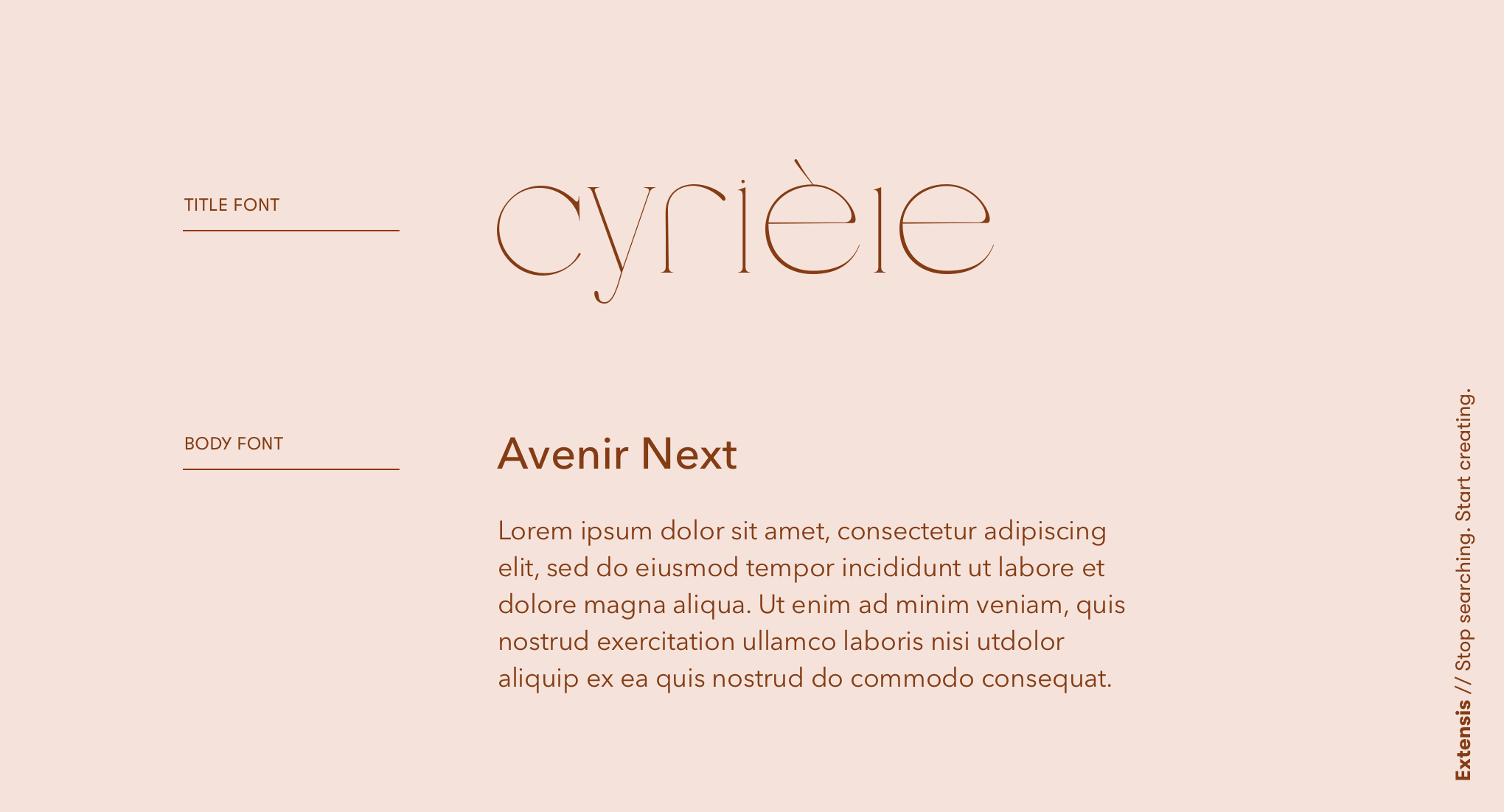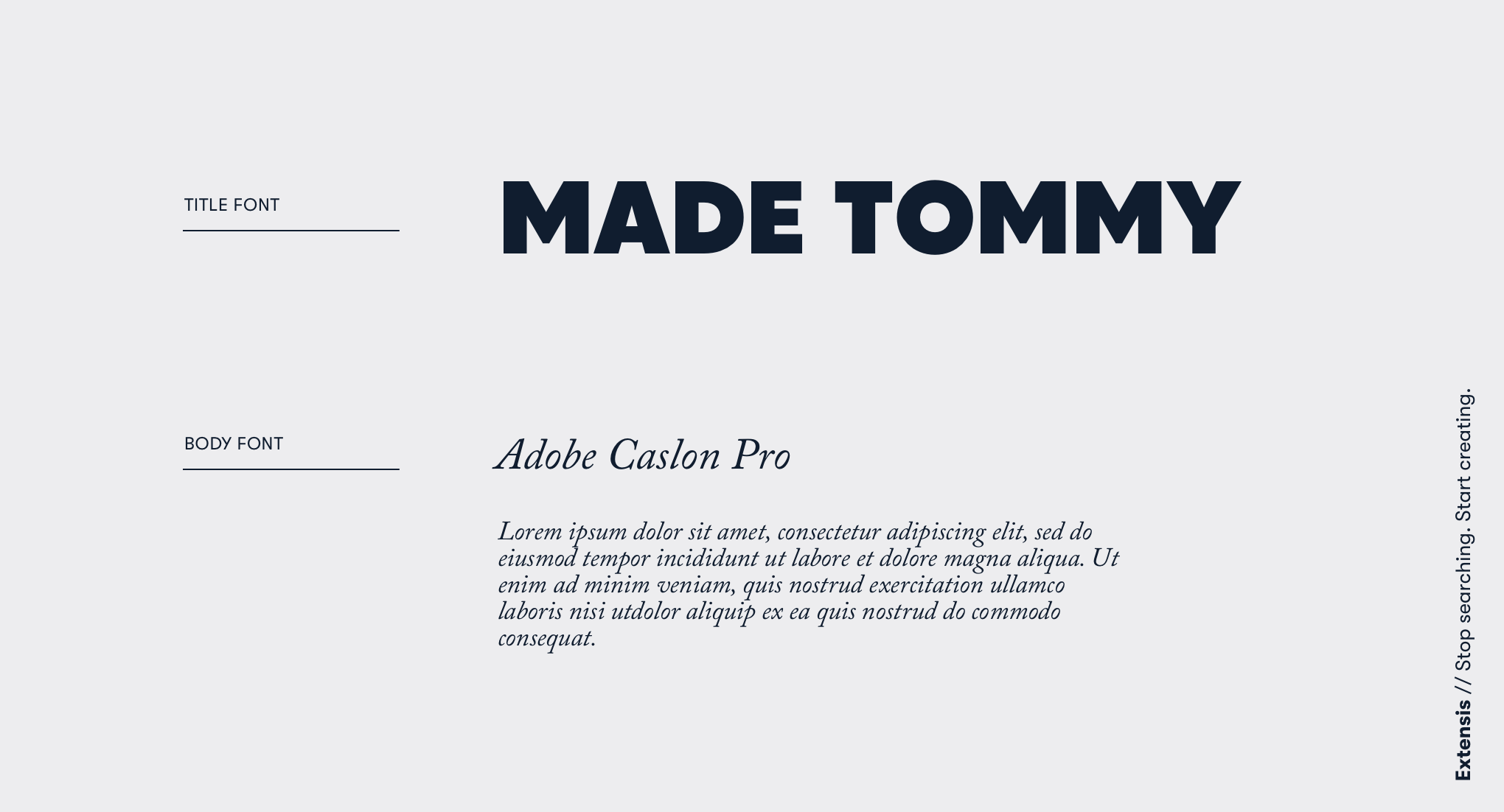
title: "Better Together: Why Font Pairing Matters"
# Better Together: Why Font Pairing Matters
Let's be honest, we have an idea of what keeps designers up at night. Bad kerning, not enough white space, and of course how to pair fonts. These things keep us up, too. In fact, we take font pairings very seriously … it’s kind of a passion of ours.
Why? Because great font pairings are essential to great design. The typefaces you choose can draw attention, lead the eye, and even influence the foundation of your brand identity.
With that in mind, let’s go through some basic “Do’s and Don’ts” of font pairing. These are by no means hard-and-fast rules. We like to think of this as a font pairing guide to help your brand shine a little brighter and to help you rest a little easier.
### The Do’s:
##### 1. Keep It Simple
First, let’s acknowledge that the world of fonts is vast and ever-changing. It can feel overwhelming when trying to choose a font (or two) for your work. Our first piece of advice? Simplicity is key. Experiment, yes. Take some risks. But err on the side of less is more.
##### 2. Keep It In The Family
When pairing fonts together, a good consideration is to keep it all in the family. After all, fonts from the same family were designed to work together. When choosing a font family, look for ones with a lot of styles, weights, and cases. This will help in creating variation and contrast … which is our next “do.”
##### 3. Contrast Is Key
Creating contrast means bringing elements that are strikingly different into close association. Contrast plays with the idea that opposites usually attract. It’s why mixing serif and sans serif fonts is a safe bet. The differences between each font can help establish a hierarchy within the layout and make readability a breeze.
![extensis-font-pairing-contrast-example-img-01](https://www.extensis.com/hs-fs/hubfs/images/Imported_Blog_Media/extensis-font-pairing-contrast-example-img-01-Oct-08-2024-01-10-12-6605-AM.png?width=2040&name=extensis-font-pairing-contrast-example-img-01-Oct-08-2024-01-10-12-6605-AM.png)
Title Font: Cyrièle // Body font: Avenir Next Regular
### The Don’ts:
##### 4. Steer Clear Of Conflict
Contrast, yes. Conflict, no. When pairing fonts together, you want balance and harmony within the contrast. Just because two fonts are different, doesn’t mean they’ll make a great pair. Look for typefaces that share a few qualities—like similar proportions and the same “x-height.”
##### 5. Avoid Groupings Of Three Or More
When it comes to pairing fonts, it can be easy to go overboard. It happens, pairing fonts is exciting. To avoid typeface chaos, another rule of thumb is to stick with two fonts — three, max. A good practice to help refine your selections is to assign each font a role or purpose in the design layout.
##### 6. Don’t Forget About Hierarchy
Hierarchy is a key principle in every element of design but especially when it comes to typefaces. Creating visual differences when pairing fonts can help highlight text that needs to attract the attention of the reader first. An approach a lot of designers find helpful is to decide which information is most essential (and least) and make their font choices from there. And don’t forget the squint test — throw your design up on a wall or screen, step back, squint and make sure the hierarchy is working.
![extensis-font-pairing-contrast-example-img-02](https://www.extensis.com/hs-fs/hubfs/images/Imported_Blog_Media/extensis-font-pairing-contrast-example-img-02-Oct-08-2024-01-10-16-7193-AM.png?width=2040&name=extensis-font-pairing-contrast-example-img-02-Oct-08-2024-01-10-16-7193-AM.png)
Title Font: Made Tommy Black // Body font: Adobe Caslon Pro Italic
At the end of the day, these Do’s and Don’ts are more suggestions and guidelines. They aren’t meant to extinguish the creative spark. In fact, we think the greatest way to get better at font pairing is to … practice. So, go and do. And, happy pairing.